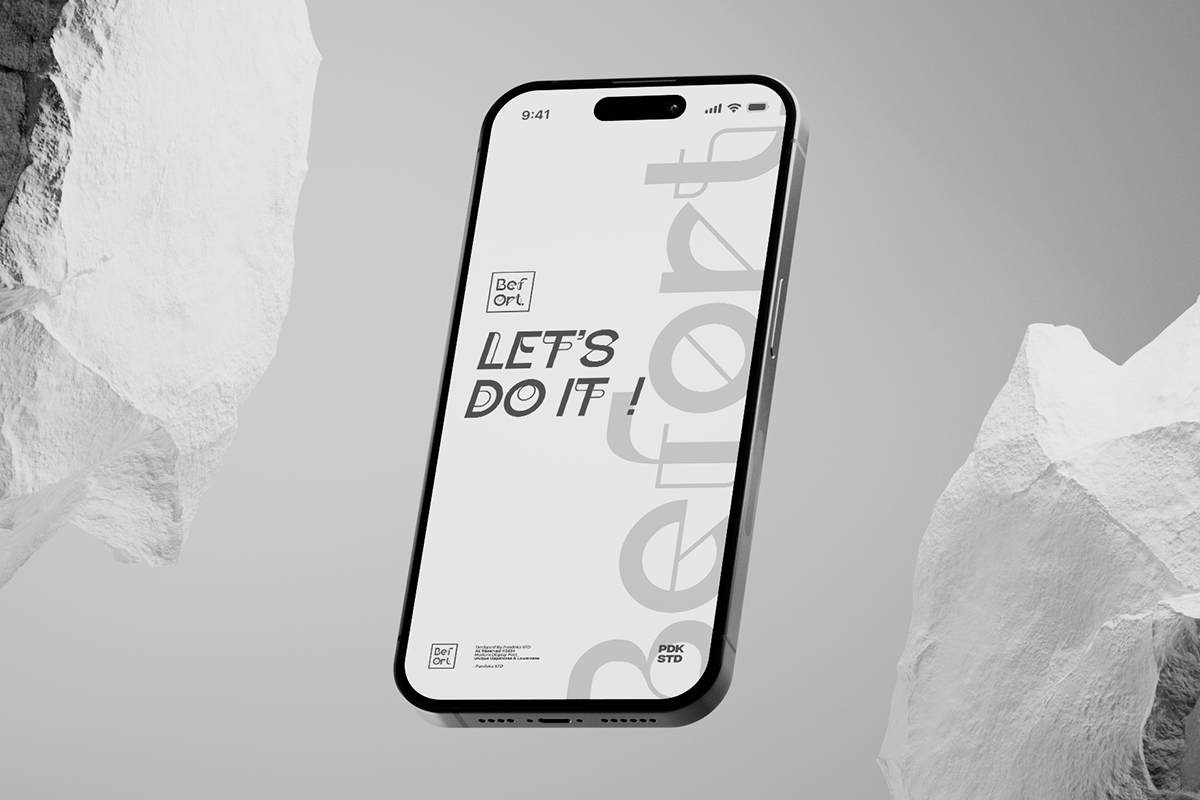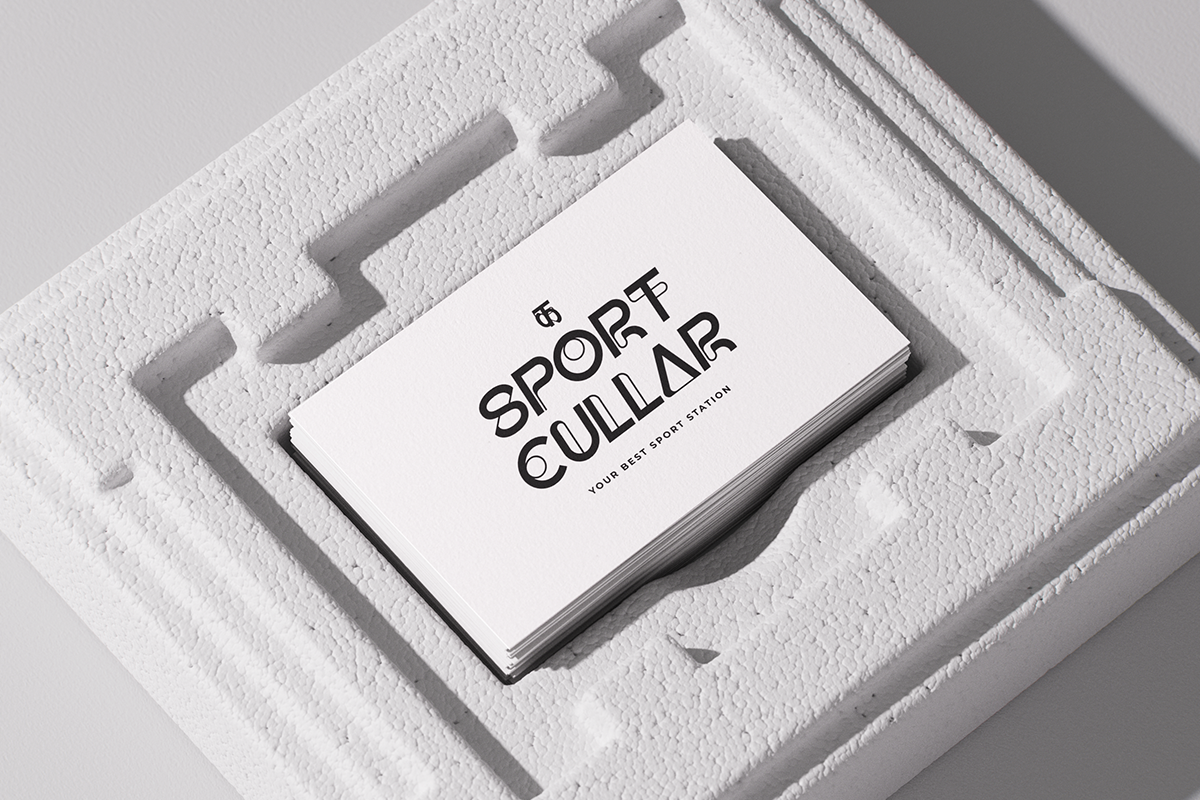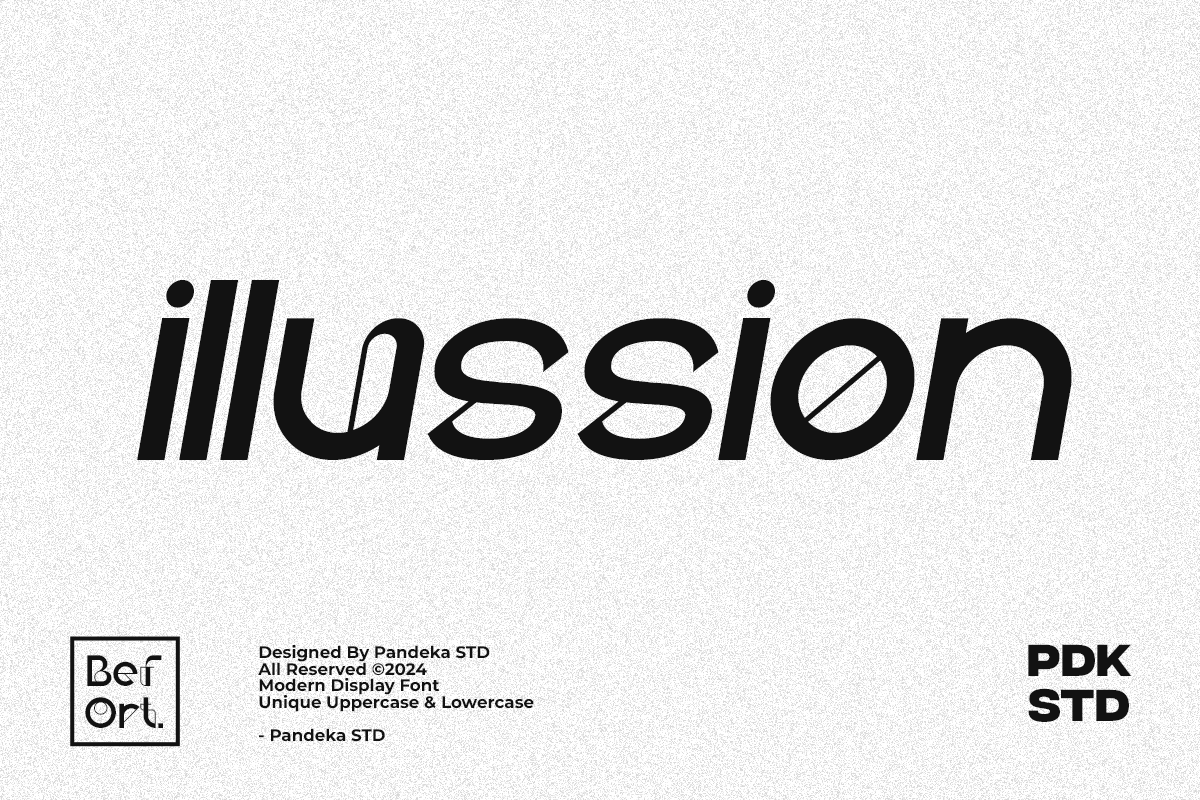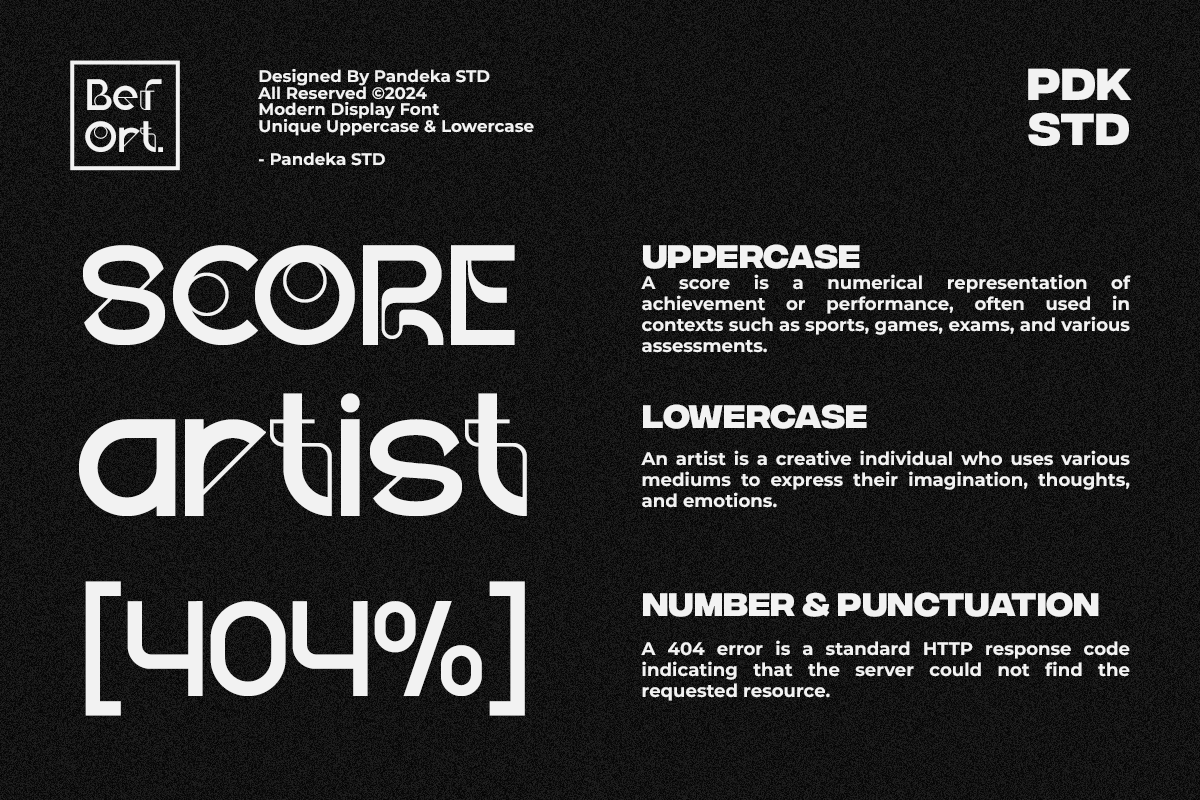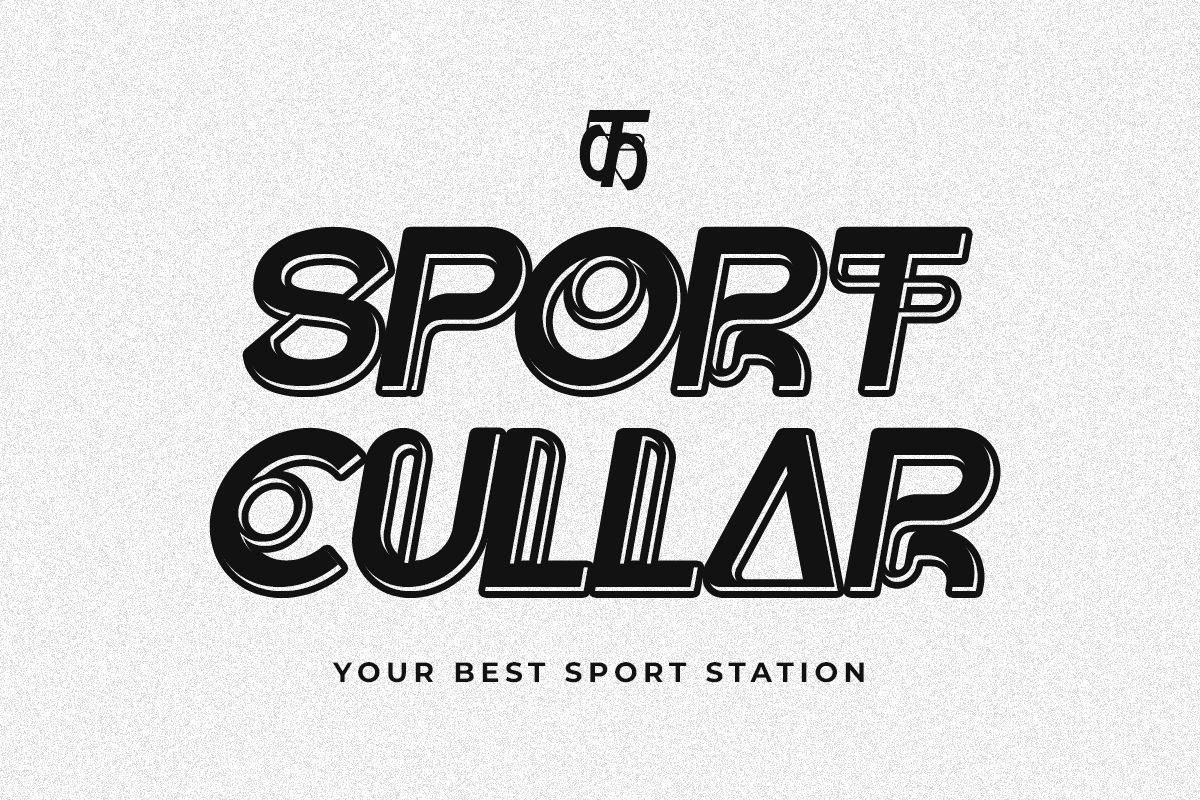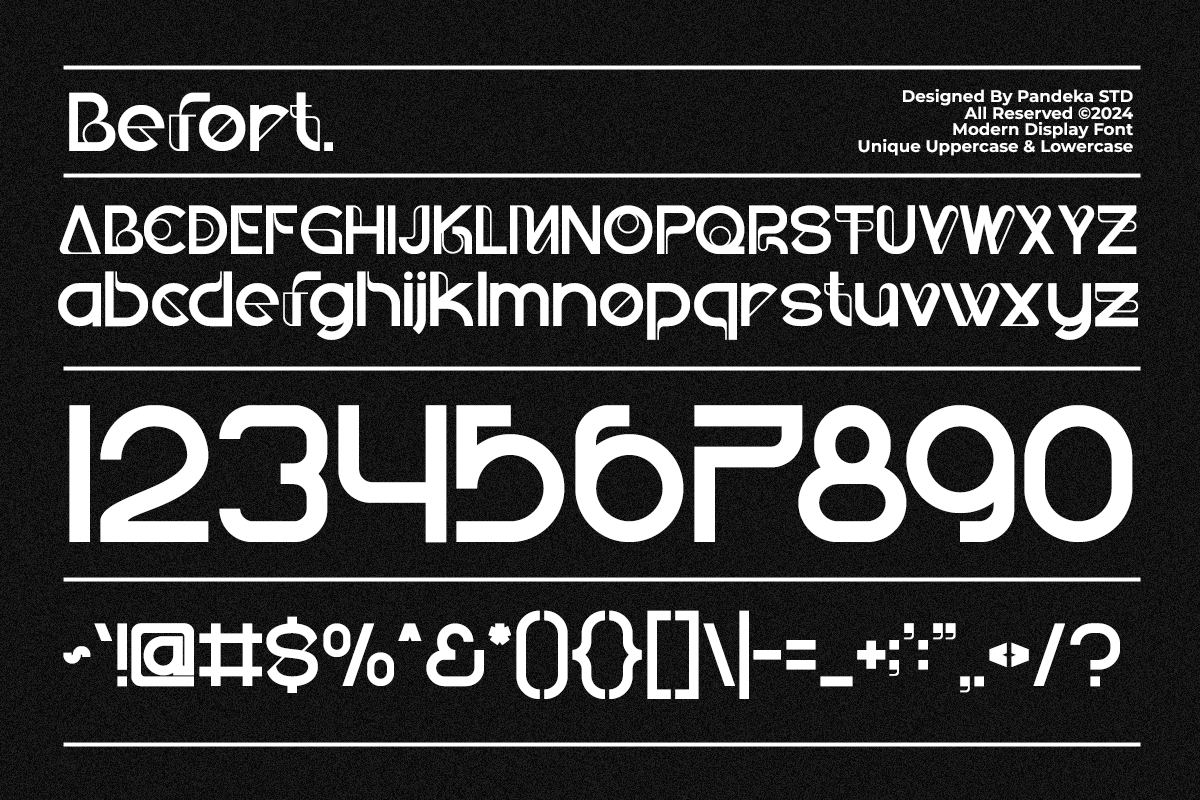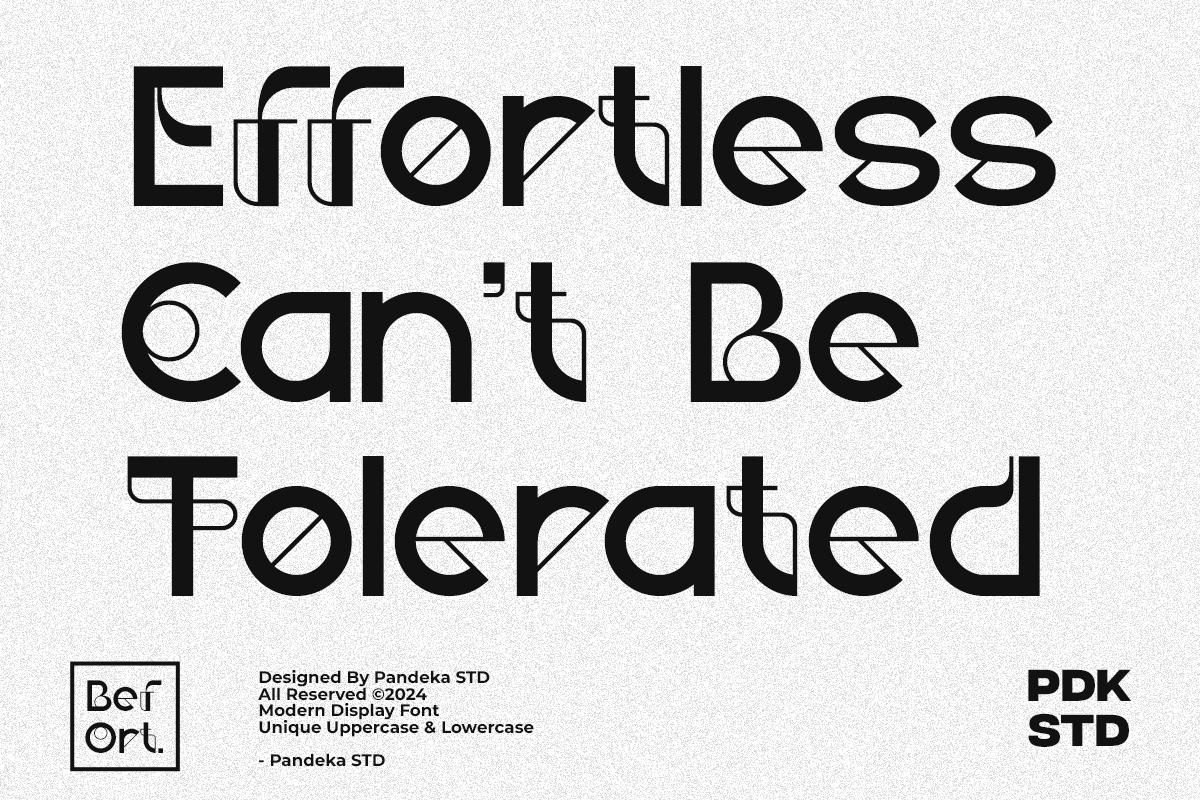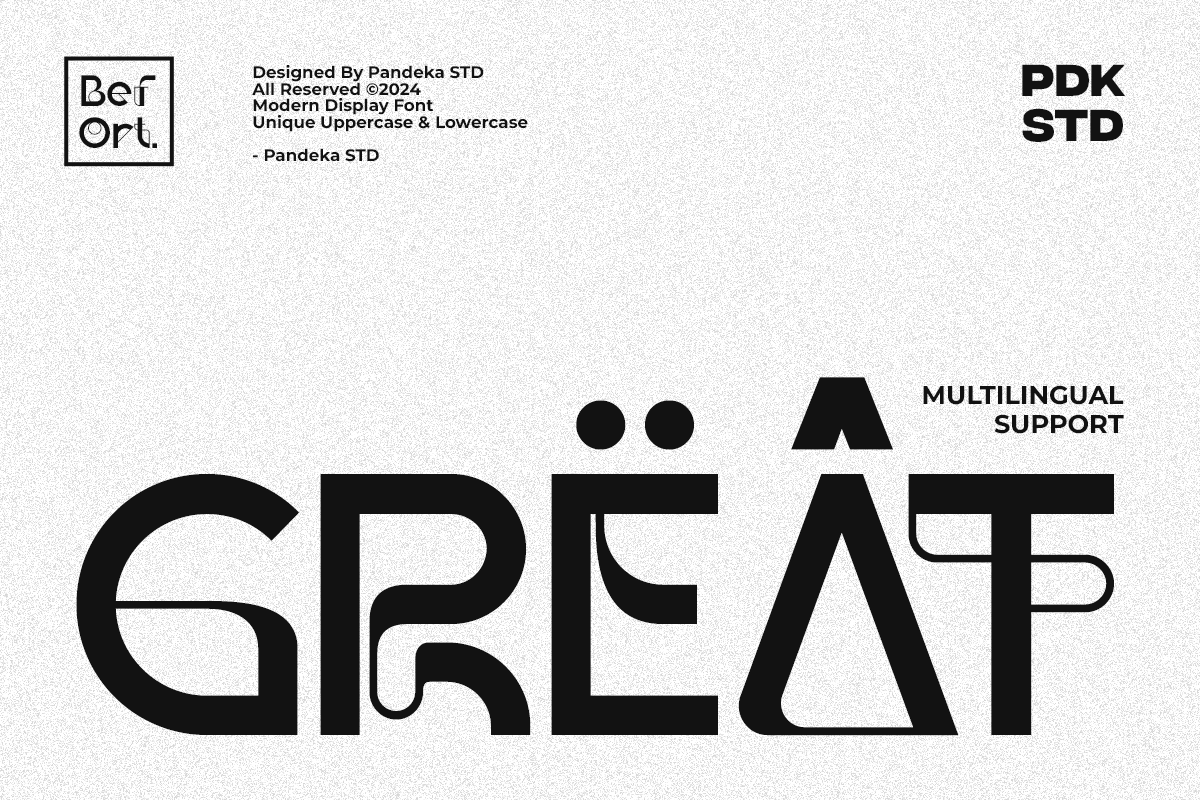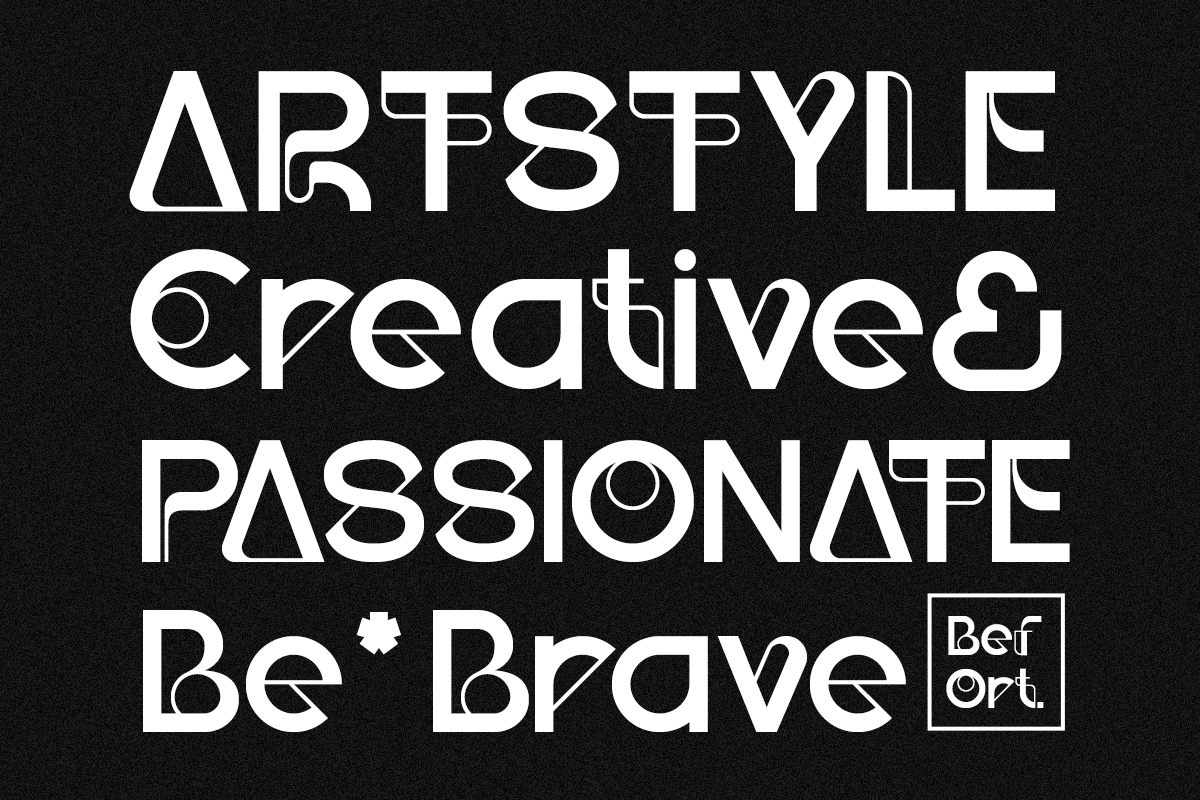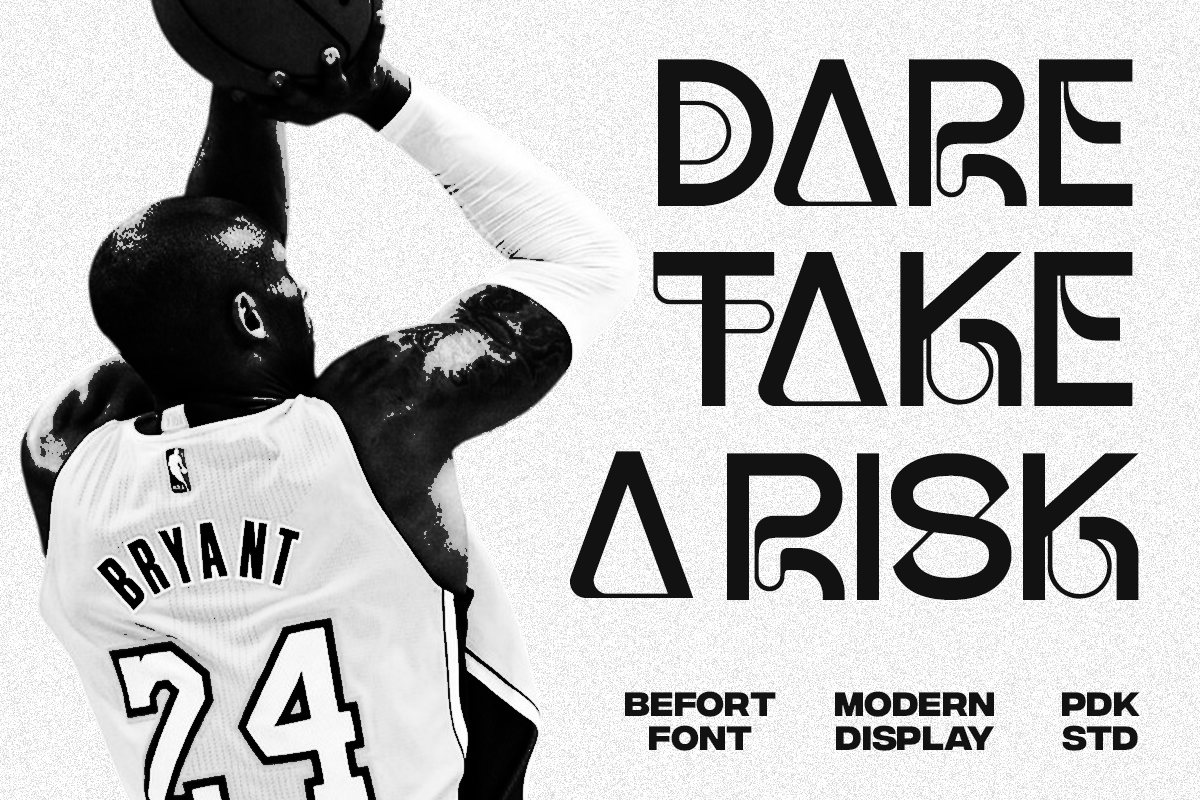
Befort - Futuristic Modern Display
Introducing Befort – A sleek modern display font that effortlessly blends straight lines with subtle curves to create a unique and sophisticated look!
Befort have its thin lines exude elegance and give a refined, upward impression. For a clean and minimalist appearance, try using Befort in uppercase :D
Befort is perfect for website headers, logos, corporate project, magazines, and modern-related branding. Its modern yet timeless design ensures your content stands out with a touch of class and sophistication.
- Unique letterforms